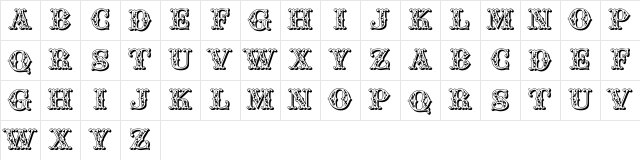
JFAutumnFair Regular
Designer: Jessica Slater
Design Context for JFAutumnFair
JFAutumnFair is a composed and adaptable typeface that performs quietly and consistently across a wide range of design contexts.